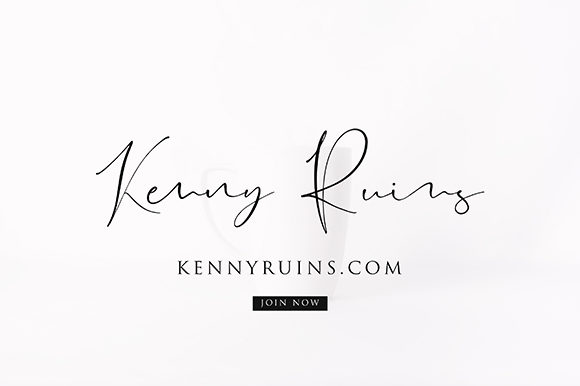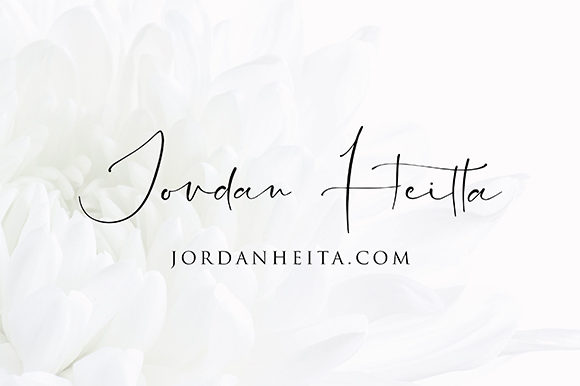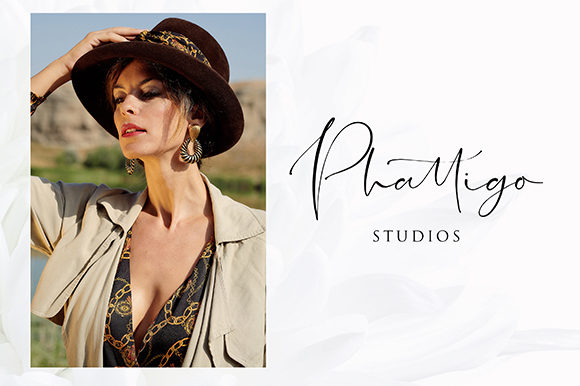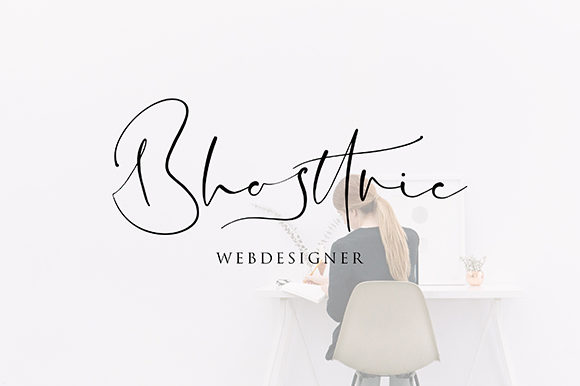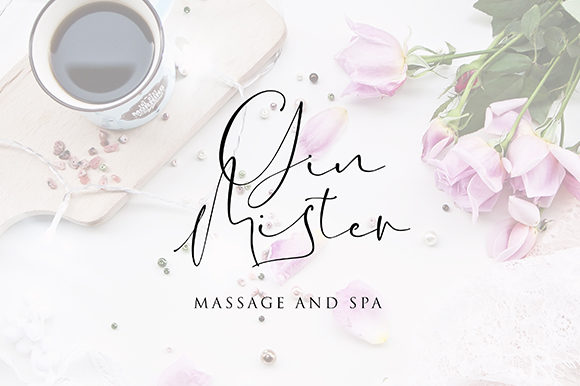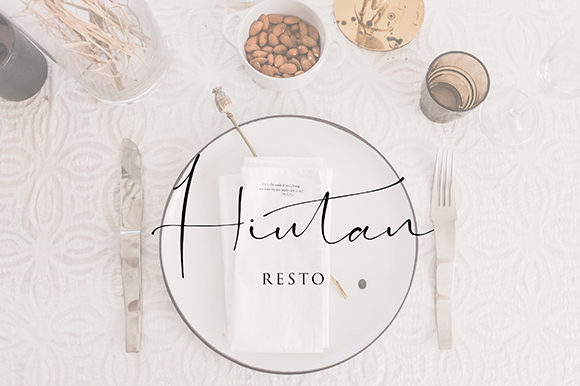
Introduction to Shattera Font
You know that moment when you’re working on a creative project and everything just clicks? You find the perfect color palette, the ideal typography, and the design starts to come together seamlessly. For designers, that moment is priceless. It’s the culmination of hours of brainstorming, sketching, and experimenting. And, let’s be honest, it’s often made possible by the right font. That’s where the Shattera Font comes in – a high-quality, smart handwritten font that adds a touch of authenticity to any design project.
With its light and airy feel, Shattera Font is perfect for designers who want to create a stunning visual impact without overpowering their message. Its transparent background allows for seamless integration with any design element, making it an invaluable resource for creative projects. Whether you’re working on a branding campaign, a website, or a social media graphic, Shattera Font is the perfect addition to your design toolkit.
Key Features of Shattera Font
- High-quality font design suitable for creative projects, offering a unique and stylish look.
- Comes with a transparent background, allowing for easy integration with various design elements.
- Perfect for use in graphic design, digital art, and other creative projects that require a distinctive and eye-catching font.
Honest Review: Shattera Font
I recently stumbled upon the Shattera Font, a high-quality design resource that caught my attention. As a designer, I’m always on the lookout for unique and versatile fonts that can elevate my creative projects. The Shattera Font definitely delivers.
What works well: ✨ The font has a clean and modern aesthetic, making it perfect for a variety of design projects. The transparent background allows for seamless integration with other design elements. The font is also highly customizable, making it easy to adjust to suit your design needs.
- Wide range of customization options
However, there are some limitations: ⚠️ The font is only available for free download, which may limit its use for commercial projects. Additionally, the font may not be suitable for projects that require a more traditional or classic look.
Overall, I’m impressed with the Shattera Font. It’s a valuable addition to any designer’s toolkit, and I appreciate that it’s available for free download. While it may have some limitations, the font’s versatility and high-quality design make it a great resource for any creative project.
Tips for Getting the Most Out of Shattera Font
To get the most out of the Shattera Font, experiment with different font sizes, colors, and combinations to find the perfect look for your creative project. You can also pair the font with other design elements to create a cohesive and visually appealing design.
Common Use Cases for Shattera Font
The Shattera Font is perfect for creating eye-catching graphics, posters, and social media designs. It’s also great for use in branding and marketing materials, such as business cards and brochures. With its high quality and transparent background, the Shattera Font is a versatile design resource that can elevate any creative project.